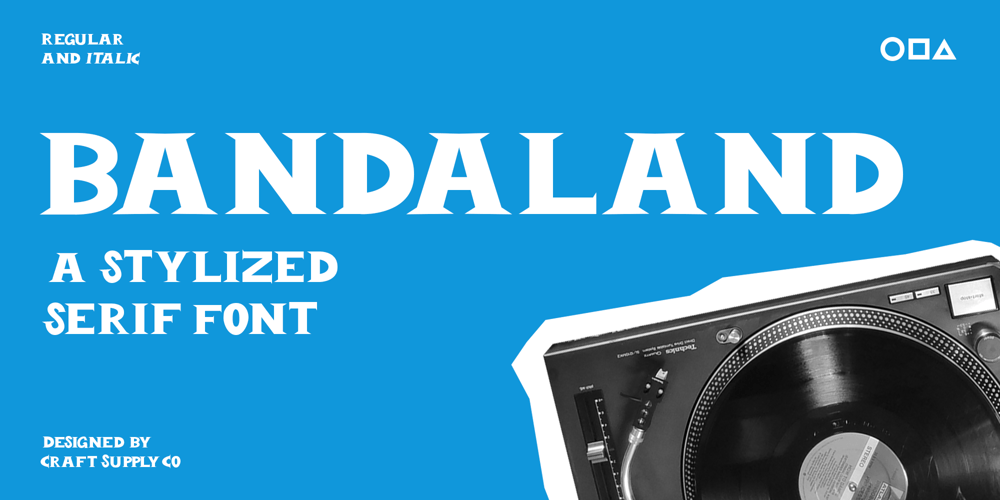
Bandaland Font Family was designed by Trio Nazzar Saputra, Wahyu Hadi Yuana and published by Craft Supply Co. Bandaland contains 2 styles and family package options. Introducing Bandaland – Stylized Serif FontWhen it comes to fonts, Bandaland – Stylized Serif Font stands out as a bold and unforgettable choice, designed to captivate and demand attention. Let’s explore what makes this font a standout option for those aiming to make a lasting impression.Bold and UnforgettableAt the core of Bandaland is its bold, strong serifs, shaping a distinctive and highly memorable look. With this font, your message remains vivid and unforgettable, avoiding easy oversight.Versatile Across Design ProjectsBandaland showcases remarkable versatility, effortlessly fitting into various design projects. Whether you’re working on branding, crafting eye-catching headlines, or designing impactful posters, Bandaland injects a dose of strength and character that sets your work apart from the rest.The Fusion of Strength and CaptivationWhat sets Bandaland apart is its remarkable fusion of strength with captivation. Its powerful and memorable design ensures your message takes center stage, making it a perfect choice for designers seeking to create a bold statement. Regardless of your level of design experience, Bandaland – Stylized Serif Font equips you with the perfect tool to draw attention and make a lasting impact.